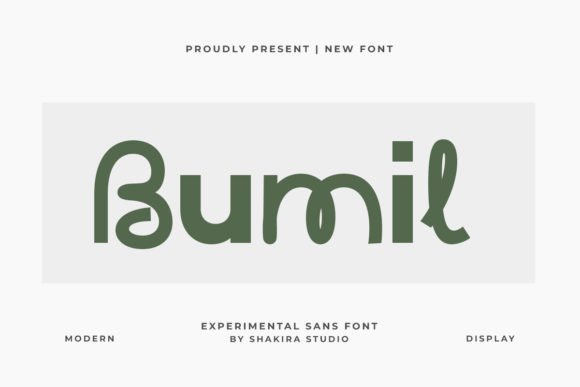
The Birth of Something New: Exploring the World of Experimental Fonts
Have you ever stared at a blank page, trying to come up with the perfect design, only to be struck by a burst of creativity when you least expect it? That’s exactly what happened when the Bumil Font was born – a bold experiment in modern typography that’s about to take the design world by storm.
As a font that’s pushing the boundaries of conventional design, Bumil is perfect for designers looking to add a touch of uniqueness to their work. With its stylish alternates and one-of-a-kind characters, the Bumil Font is sure to make your projects stand out from the crowd. Whether you’re working on cutting-edge branding or innovative editorial designs, this font is the perfect tool to help you join the trend towards bold and avant-garde typography.
Bumil Font Key Features
- Font Family: Bumil is a sans-serif font family designed for display and text use.
- Unique Characteristics: Bumil features a clean, modern design with a distinctive x-height and legibility, making it suitable for body text and display headlines.
Bumil Font Review
I’ve had the chance to work with the Bumil Font, and I must say it’s a unique addition to any design project. Here are some of its notable features:
- ✨ Elegant and modern design: Bumil Font exudes a sense of sophistication and refinement, making it perfect for high-end branding and design projects.
Overall, I’d say the Bumil Font is a solid choice for designers looking for a modern and elegant font. While it may have some limitations, its unique design and wide language support make it a worthwhile investment. With some careful consideration and customization, the Bumil Font can elevate any design project to the next level.
To get the most out of the Bumil Font, use it in combination with other design elements such as bold and italic text, and experiment with different font sizes and colors. You can also use the font in various design contexts such as logos, headings, and body text.
The Bumil Font is suitable for a wide range of design applications, including: 1) Logos and branding, 2) Headings and titles, 3) Body text and paragraphs, and 4) Social media graphics and advertising.